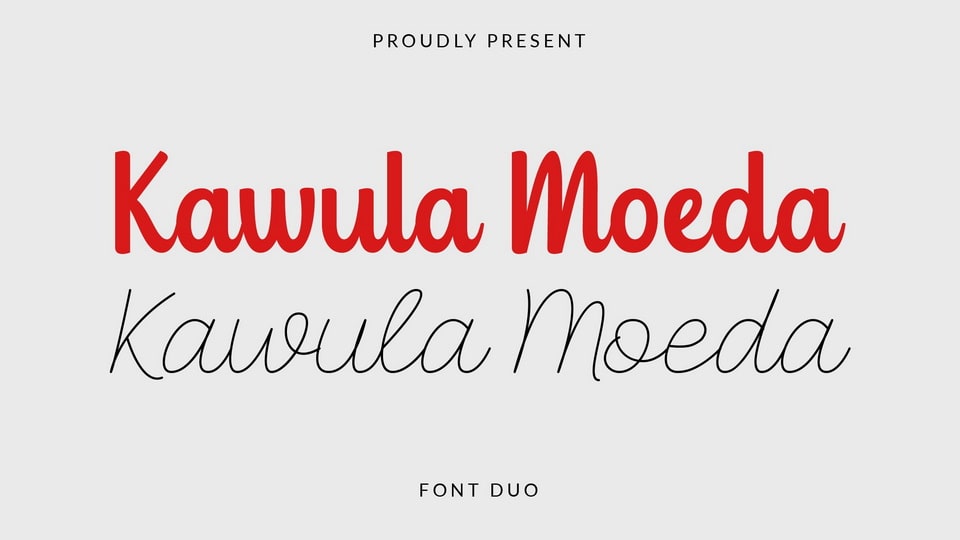
Feb 5, 2025Script & HandwrittenKawula Moeda Font Kawula Moeda is a graceful and charming script font. It has beautiful and well balanced characters and as a result, it matches a wide pool of designs. Font DetailsDesigned by: Dida Ahluddin (Ahweproject)WebsiteLicense: Free for personal use Download Kawula Moeda FontFile size: 18.67 KBCreated: February 16, 2025Updated: February 16, 2025 Download Explore similar fonts Chastel Reid Font Blasting Font Aaksaraan Rania Font Afilora Font Amora Point Font Velora Font # Cursive# Handwriting More fonts by Dida Ahluddin (Ahweproject)Mondera FontMonchila FontAyanalove FontLoving Stroke FontRameyon FontKashiwa FontPrajurit Snowman FontMoriska Font